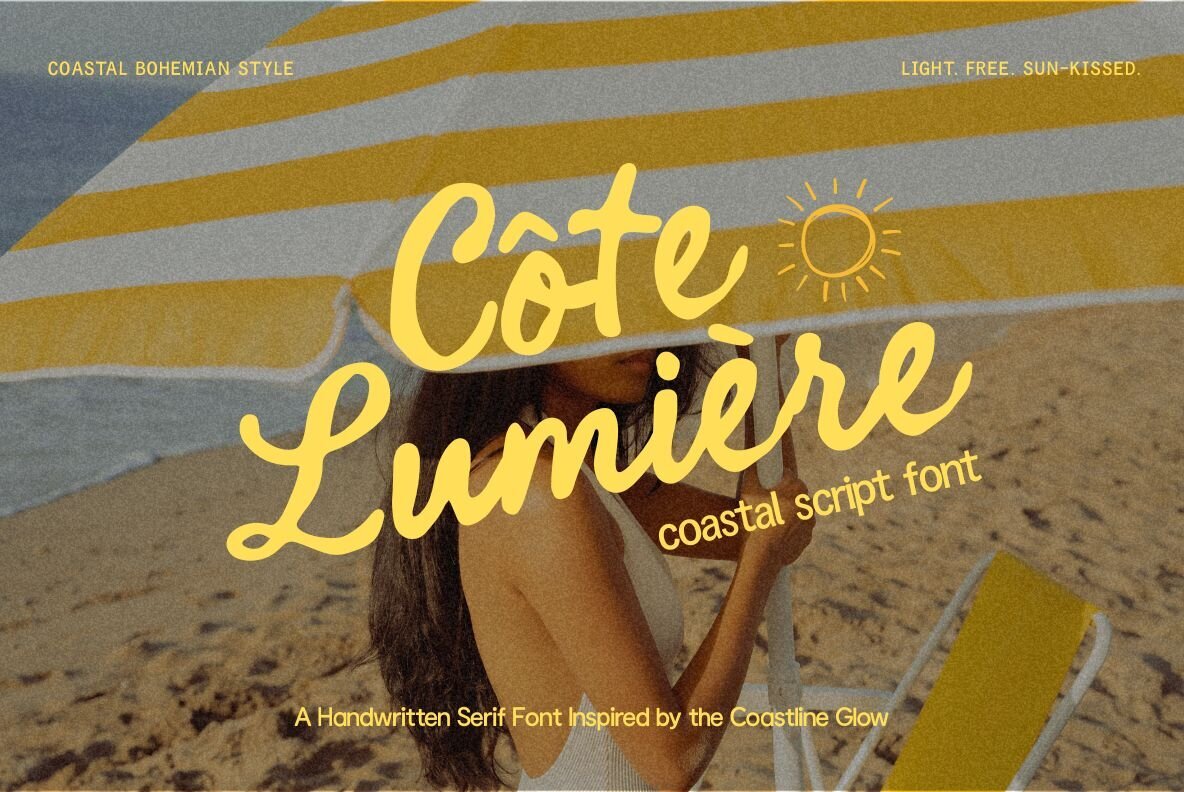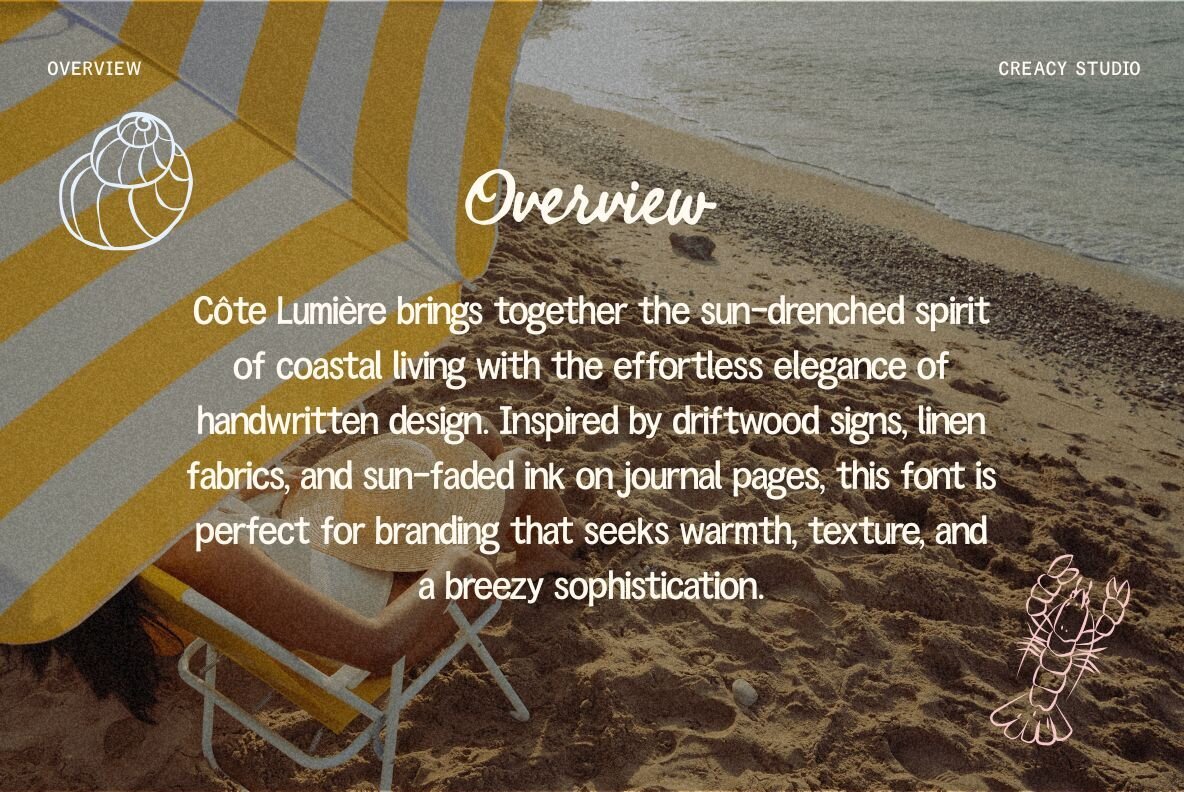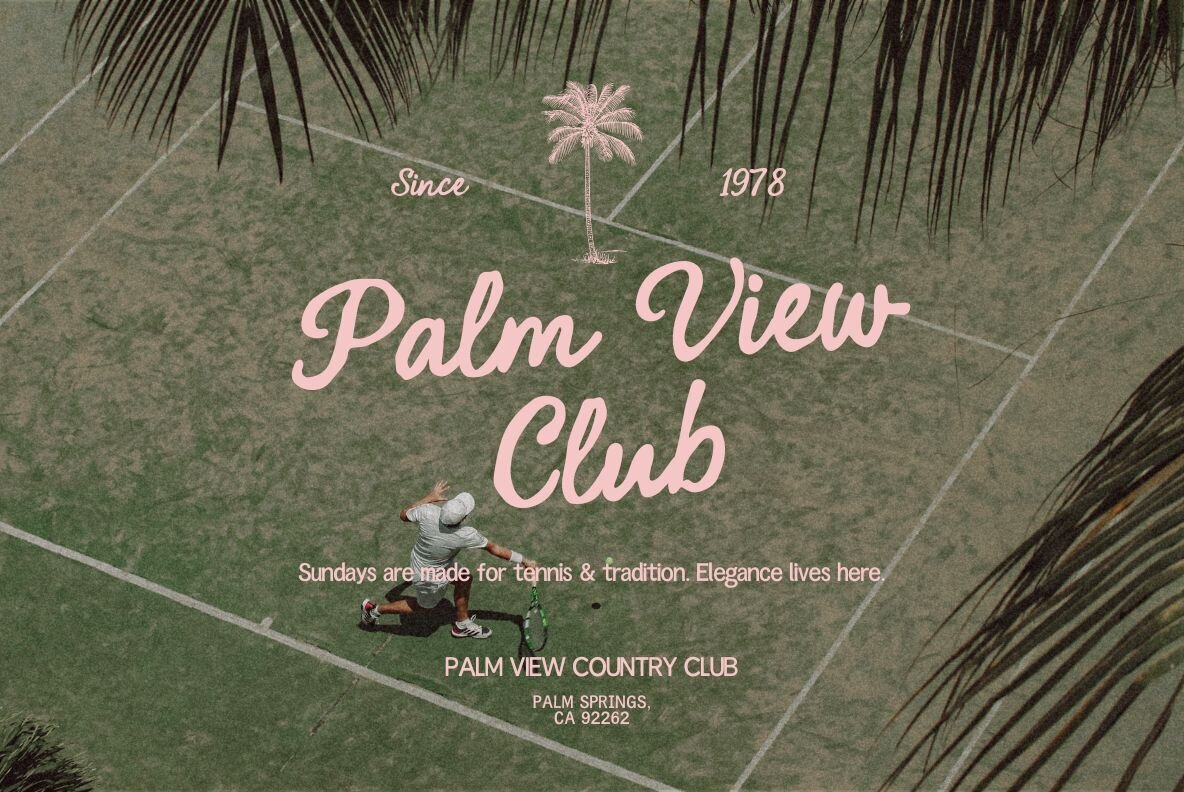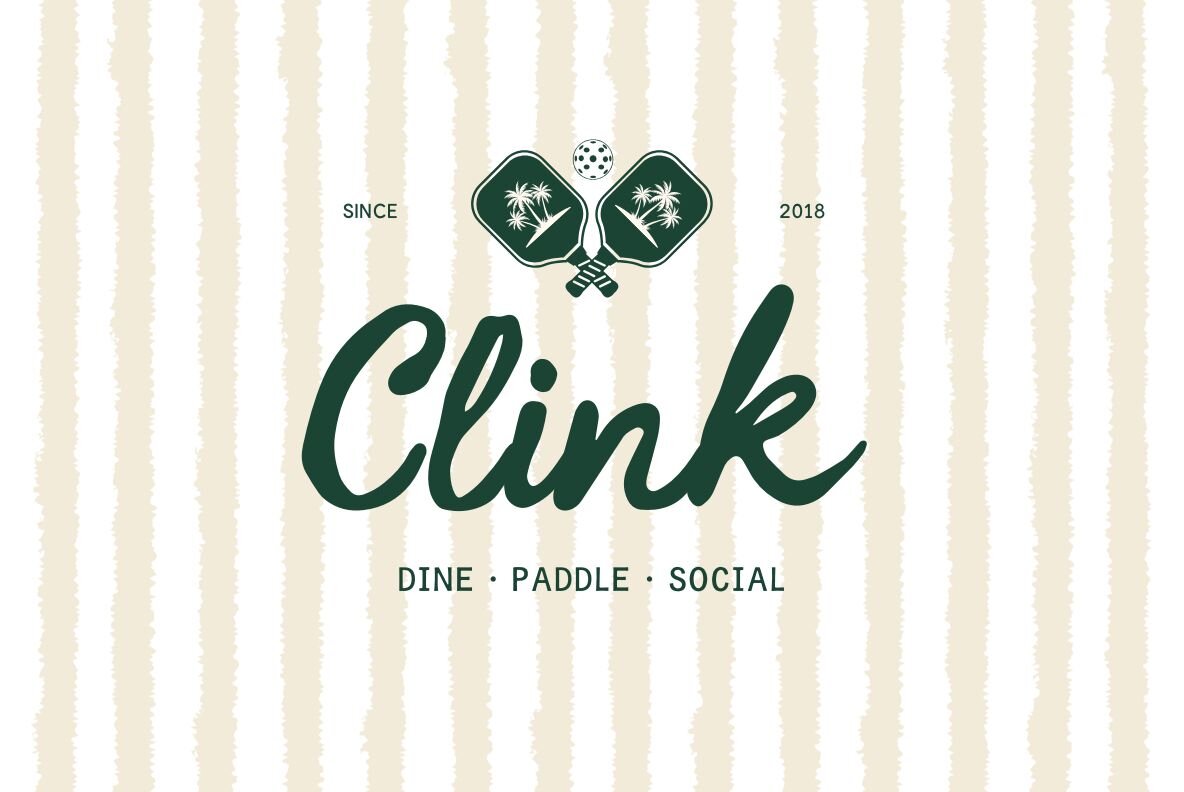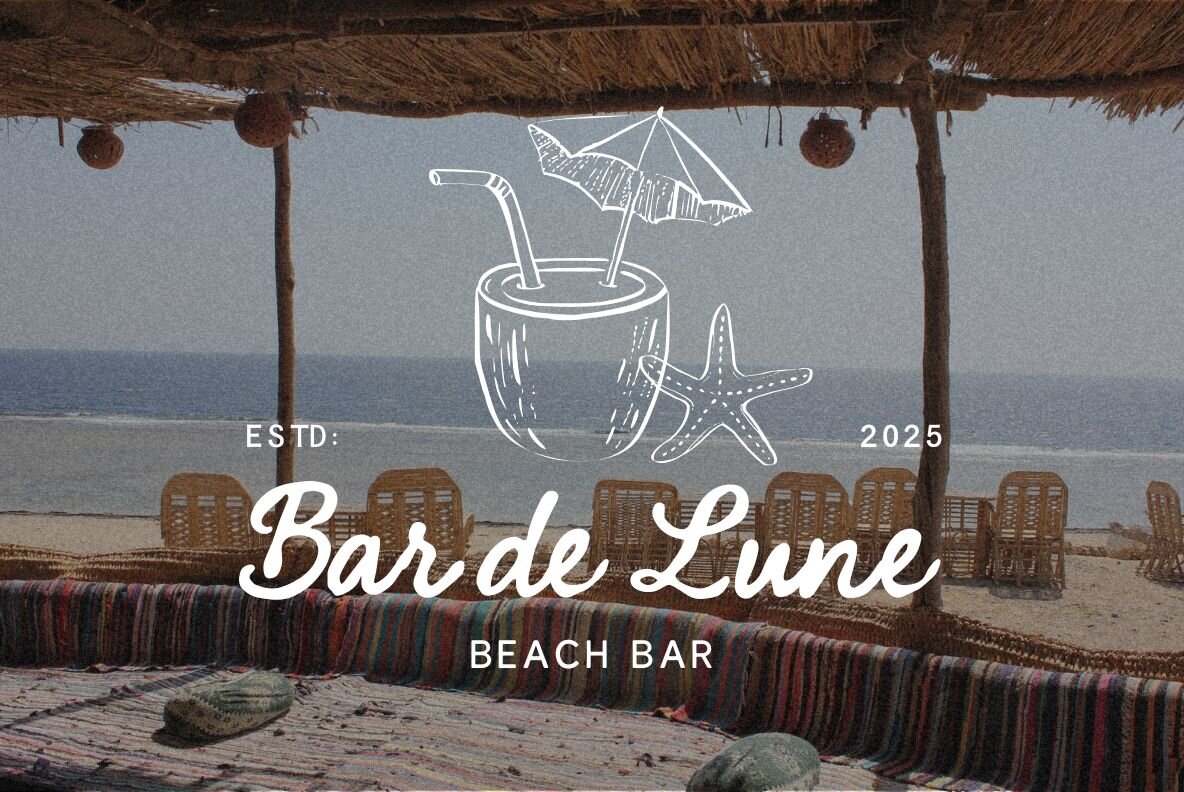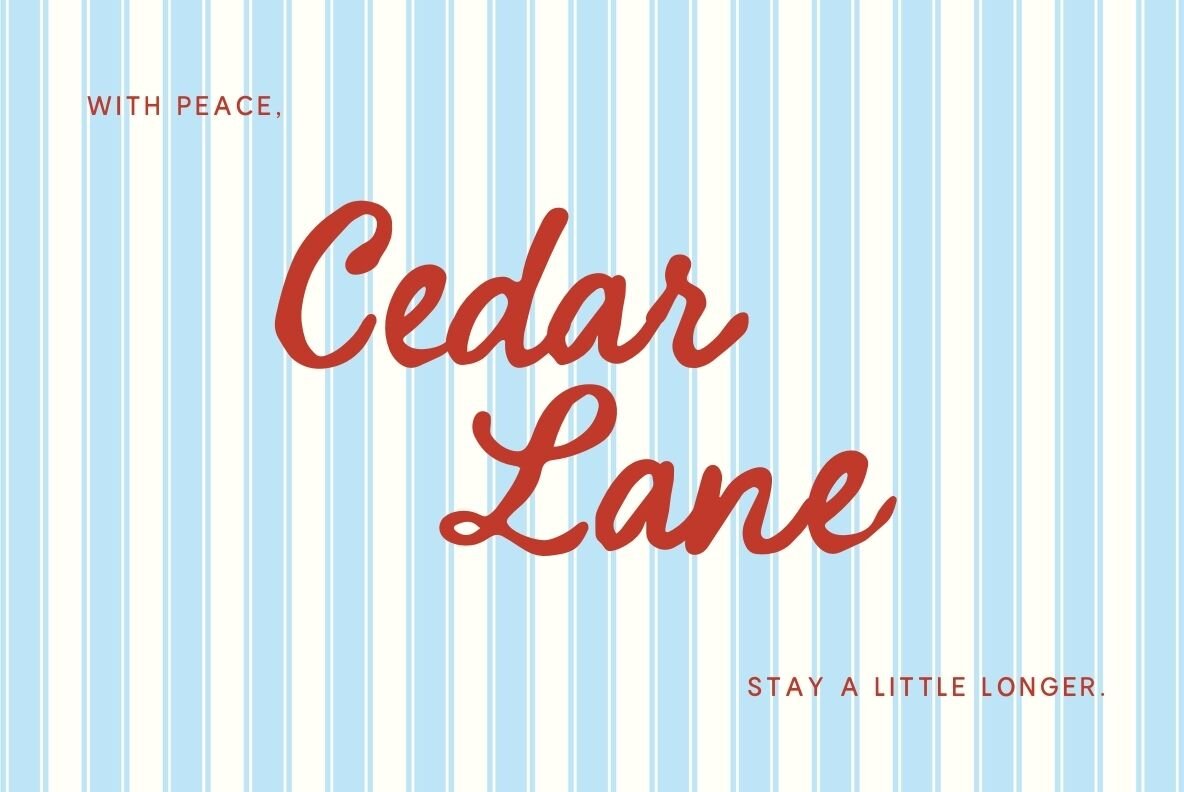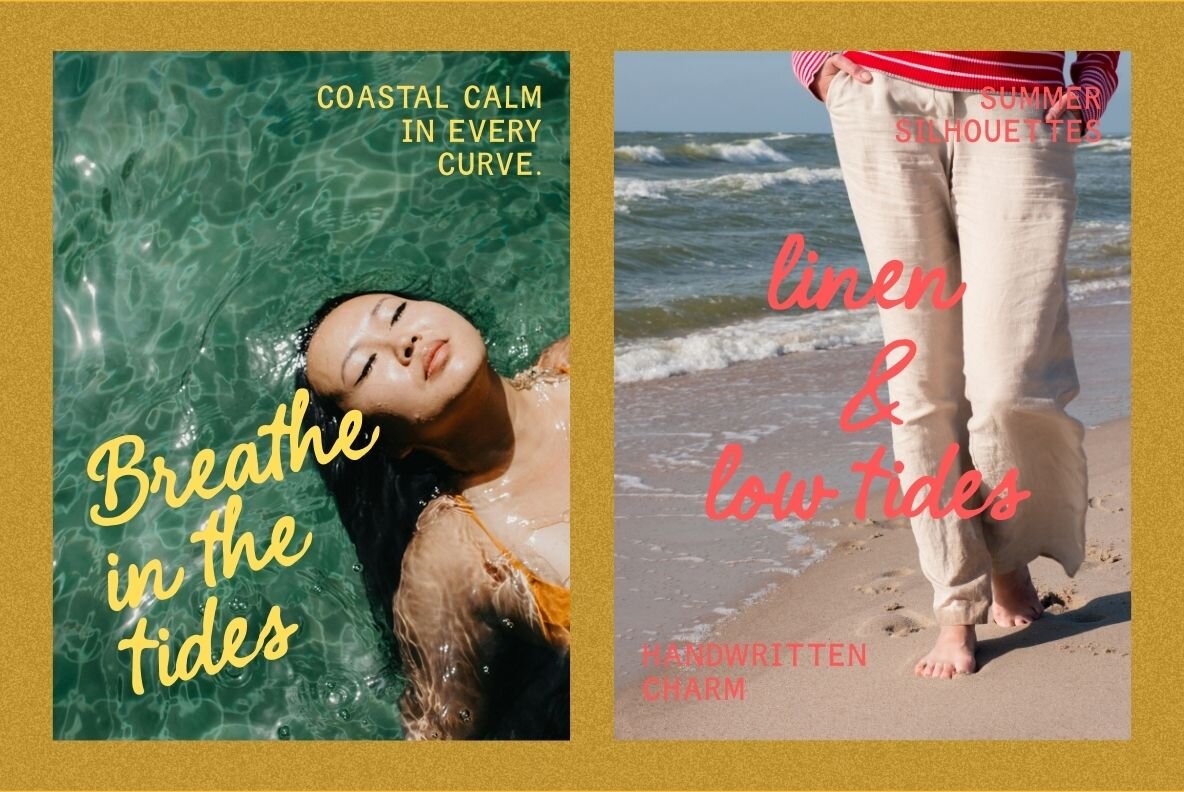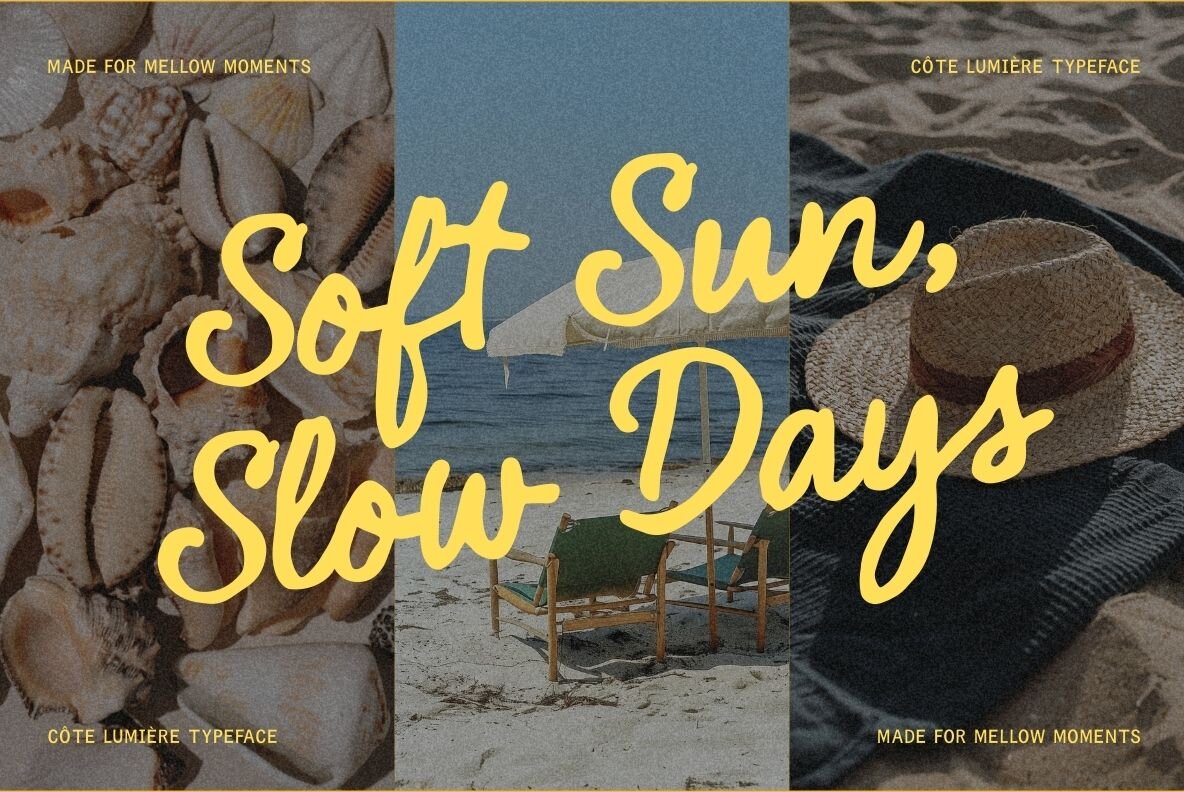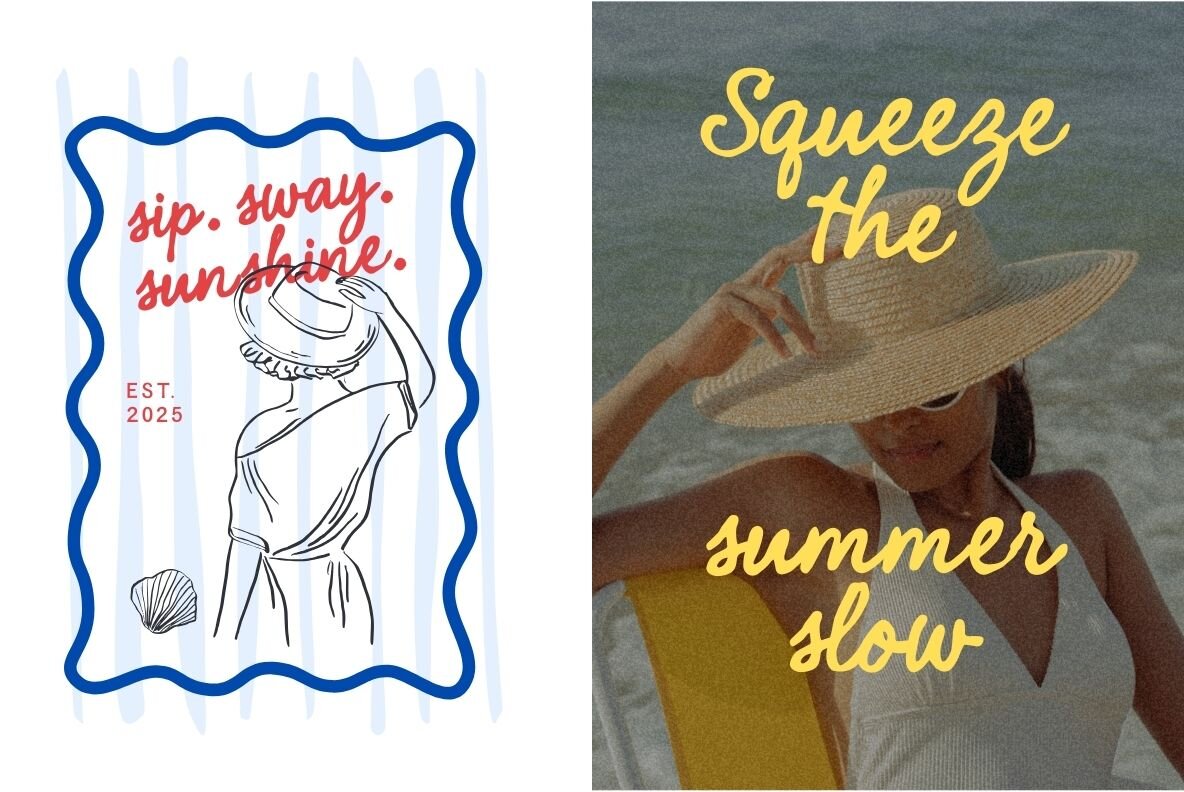
Côte Lumière Font
Côte Lumière Regular
Côte Lumière perfectly captures the sunlit essence of coastal living, merging it seamlessly with the grace of handwritten typography. Drawing inspiration from driftwood signs, linen textiles, and sun-bleached ink found on the pages of well-loved journals, this font is a brilliant choice for creating branding that embodies warmth, texture, and effortless sophistication. Whether crafting designs for a beachside retreat, a cozy café, or a lifestyle brand, Côte Lumière brings forth a timeless charm and an aura of laid-back coastal grace.Côte Lumière: Coastal Charm Meets Handwritten Elegance